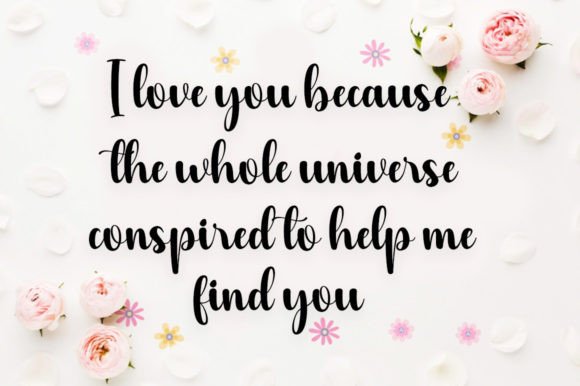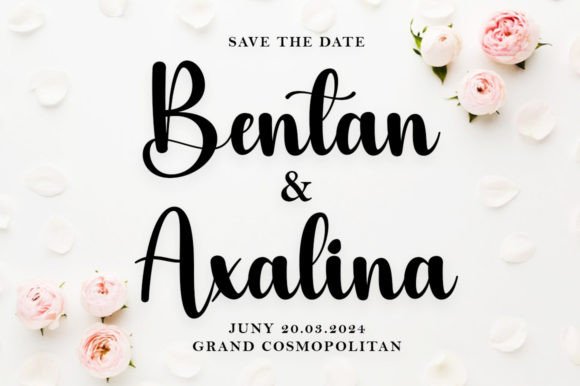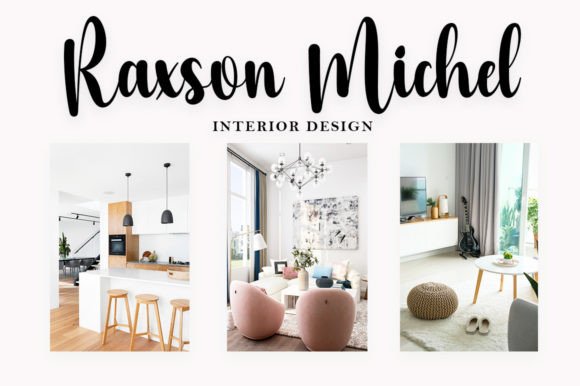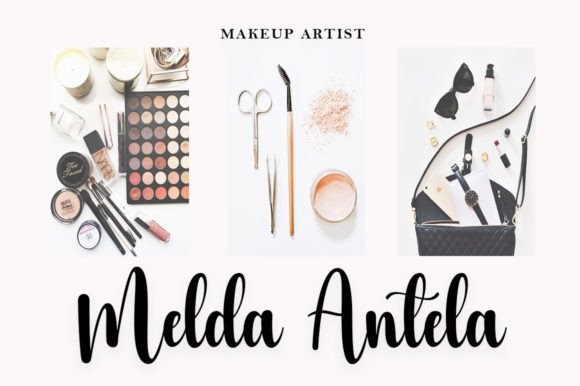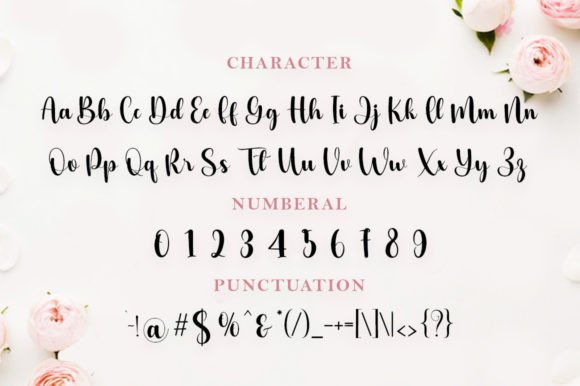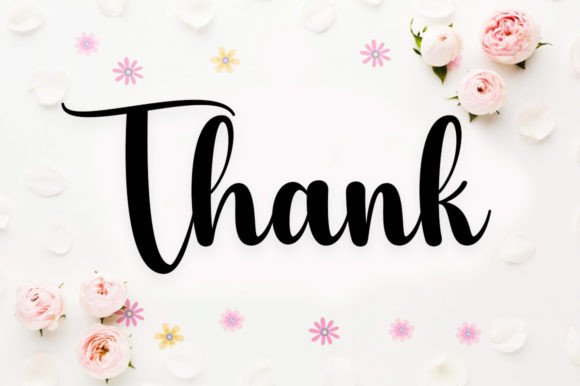
Micha Font
Micha is a delicate, cute, and stylish handwritten font, suitable for a wide spectrum of applications. From greeting cards to headlines, wedding themes, Christmas, birthdays, quotes, stickers, or just overlays on images, this font will definitely elevate any creation.